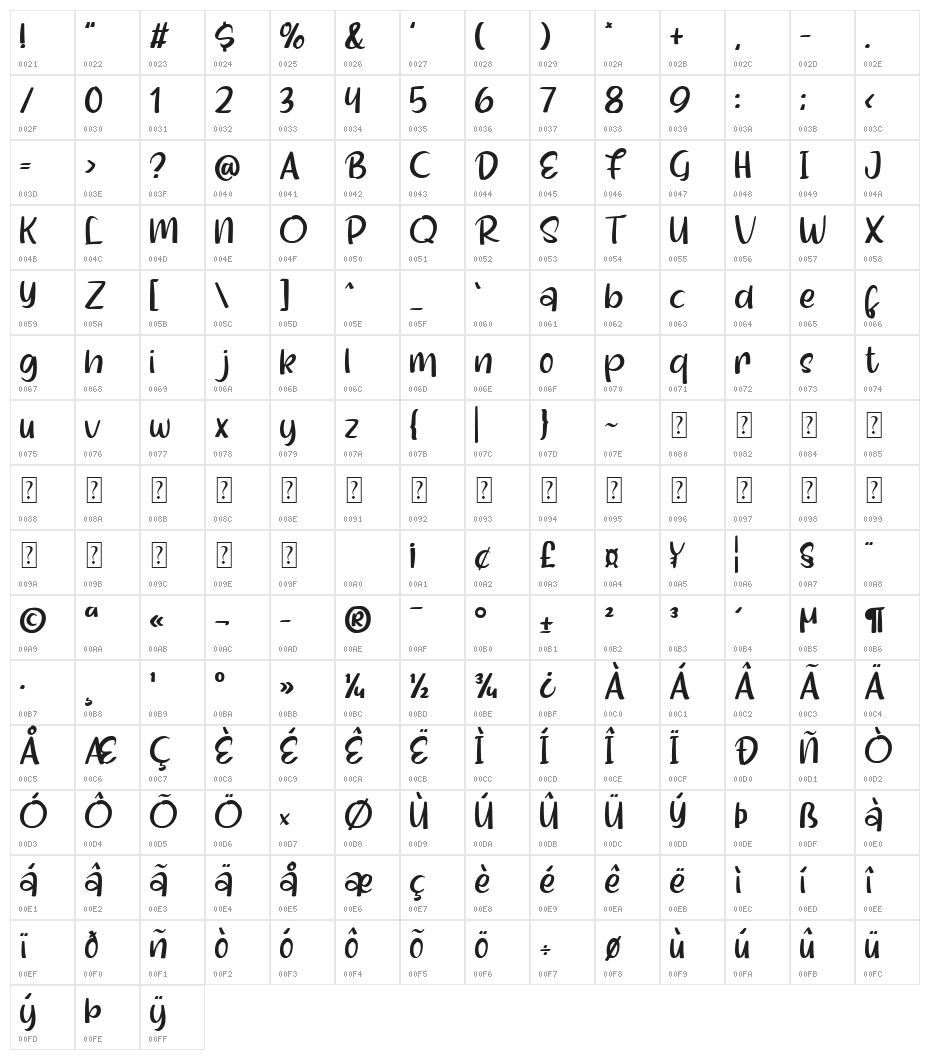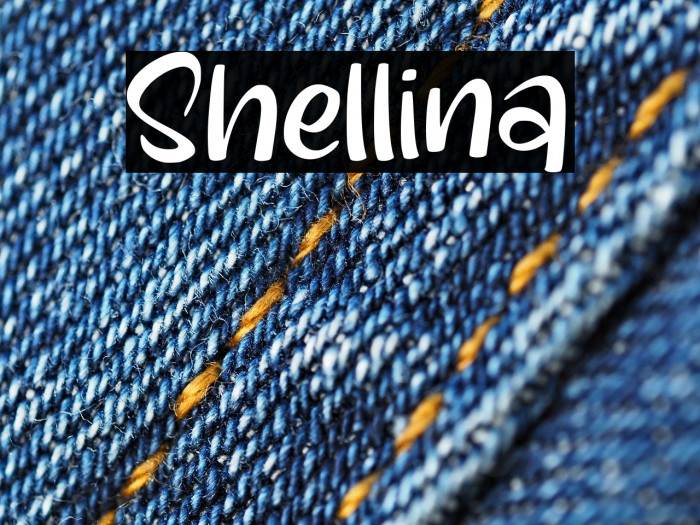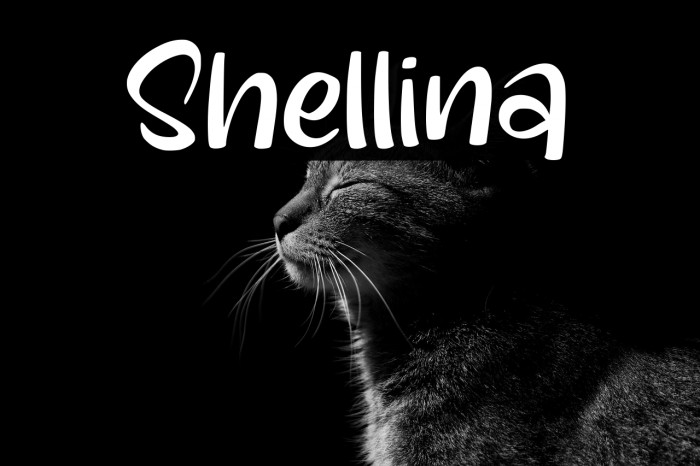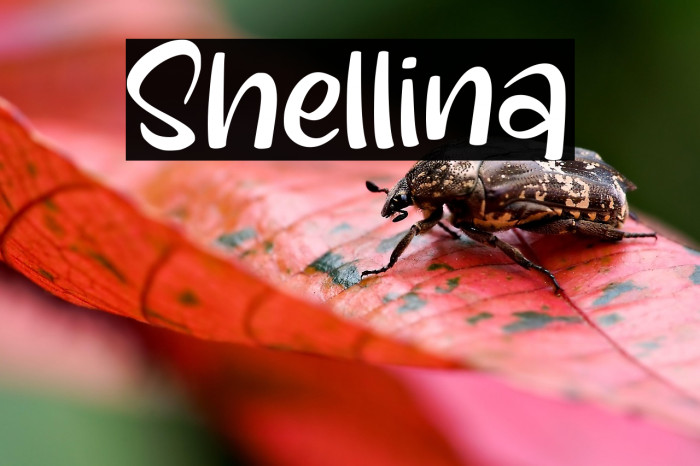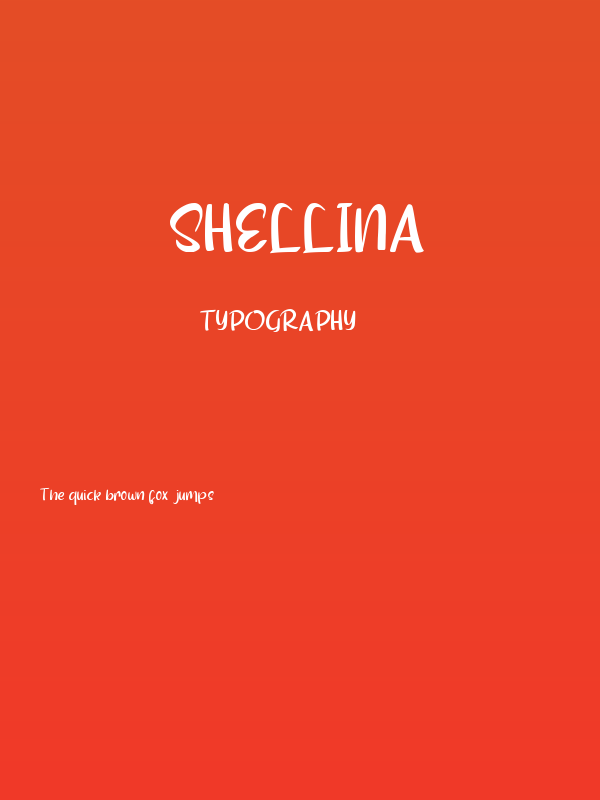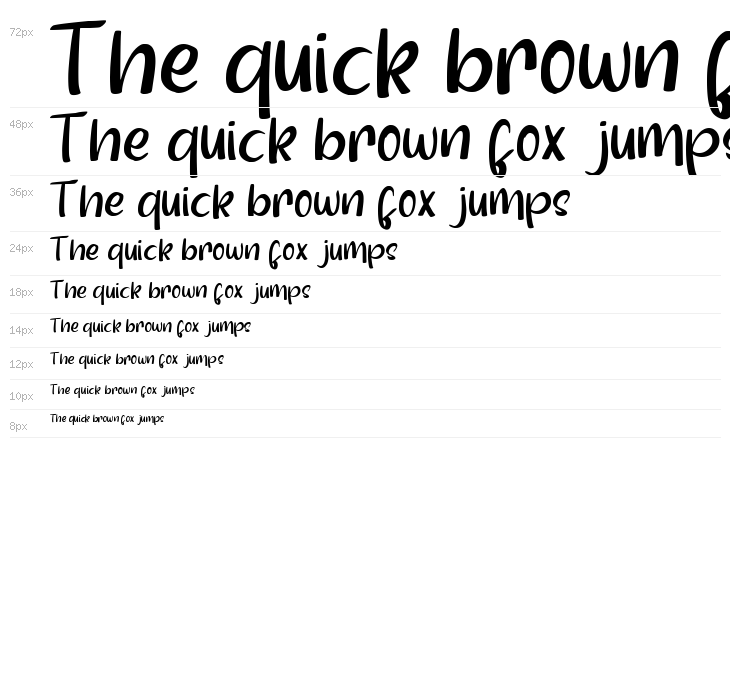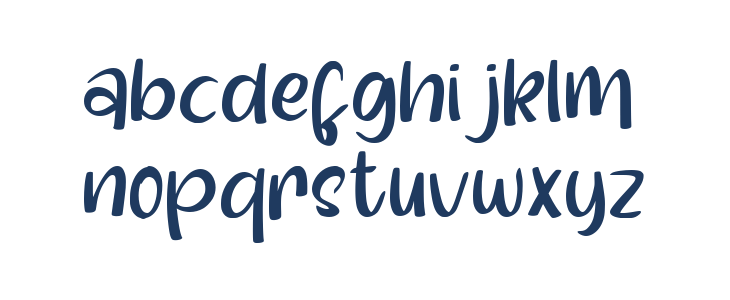
Shellina Font
Shellina Description
This font features a playful and casual handwritten style, characterized by its smooth, flowing curves and slightly uneven strokes. The letters are bold and rounded, giving a friendly and approachable appearance. The uppercase and lowercase letters maintain a consistent style, with the lowercase letters exhibiting a slight slant that adds to the informal feel. The numerals are clear and easy to read, matching the overall aesthetic of the alphabet. Special characters are well-integrated, maintaining the same whimsical and lively design. This font is ideal for projects that require a personal touch or a sense of fun and creativity.
| Overall Style | Casual, Playful |
| Use Case | Headlines, Logos, Informal Text |
| Proposed Projects | Greeting cards, children's books, casual branding, social media graphics. |